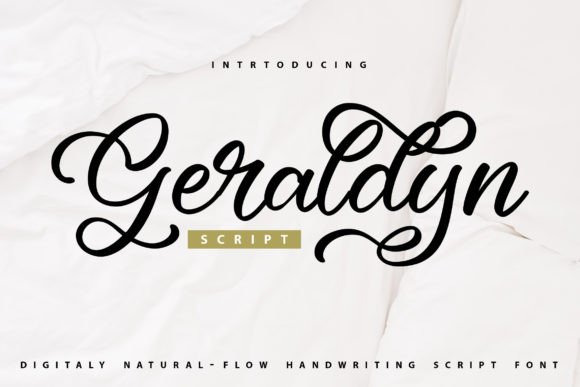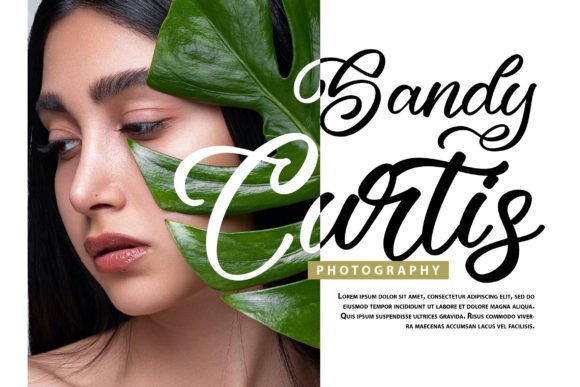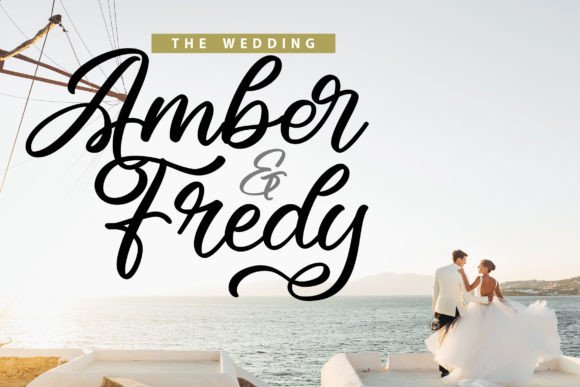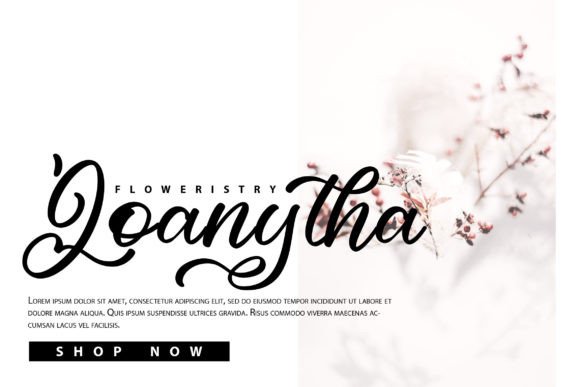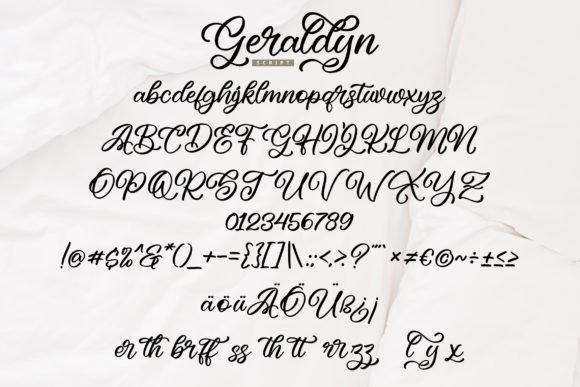
Geraldyn Font
Add Elegance with Geraldyn Font
Geraldyn Font is a beautifully crafted digital handwritten script font with a classic calligraphy style. It offers a modern take on traditional handwriting, combining smooth flowing strokes with a stylish, personal touch. Whether you’re working on wedding invitations, business branding, or social media graphics, Geraldyn Font adds sophistication and charm.
Its graceful curves and balanced letterforms ensure that your designs look polished and professional. This font blends timeless elegance with contemporary appeal, making it ideal for many creative projects.
Versatile Uses of Geraldyn Font
Geraldyn Font works perfectly across a variety of design contexts. You can confidently use it for:
• Wedding and event invitations
• Business cards and brand identity materials
• Posters and promotional designs
• Product packaging and labels
• Inspirational quotes and social media posts
This font’s smooth calligraphy style brings warmth and personality to any visual content. Its flexibility makes it suitable for both formal and casual projects.
Features and Ease of Use
Its well-kerned characters and clear letter spacing make it readable at various sizes, perfect for both headlines and body text. This feature enhances its usability across print and digital media.
Why Designers Choose Geraldyn Font
Designers appreciate GeraldynFont for its unique balance of style and legibility. Its hand-drawn quality adds authenticity, making your work feel personal and handcrafted. At the same time, its clean, digital polish ensures a professional finish.
Whether you’re a professional graphic designer or a creative hobbyist, GeraldynFont offers a versatile and elegant solution for your typography needs.